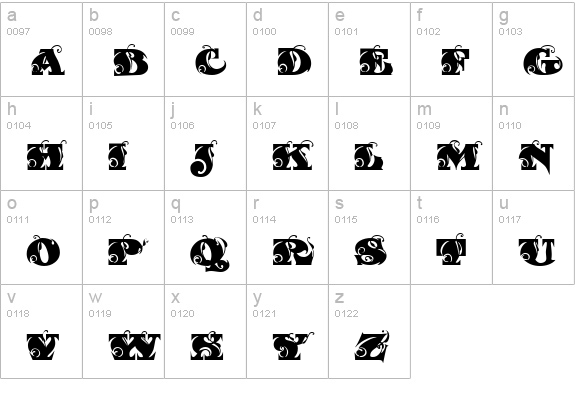
Introducing the mesmerizing Fantastic MF Initials font, a true embodiment of elegance and sophistication. This exquisite font features intricate details and graceful curves that exude a sense of charm and luxury. The Fantastic MF Initials font is perfect for adding a touch of opulence to your designs, whether it be for invitations, branding, or any creative project. What makes this font even more remarkable is that it is available for free download at FontsMarket.com. Yes, you read that right - you can elevate your design projects with this stunning font without spending a dime. So why wait? Head over to FontsMarket.com now and unleash the magic of the Fantastic MF Initials font in your creations.